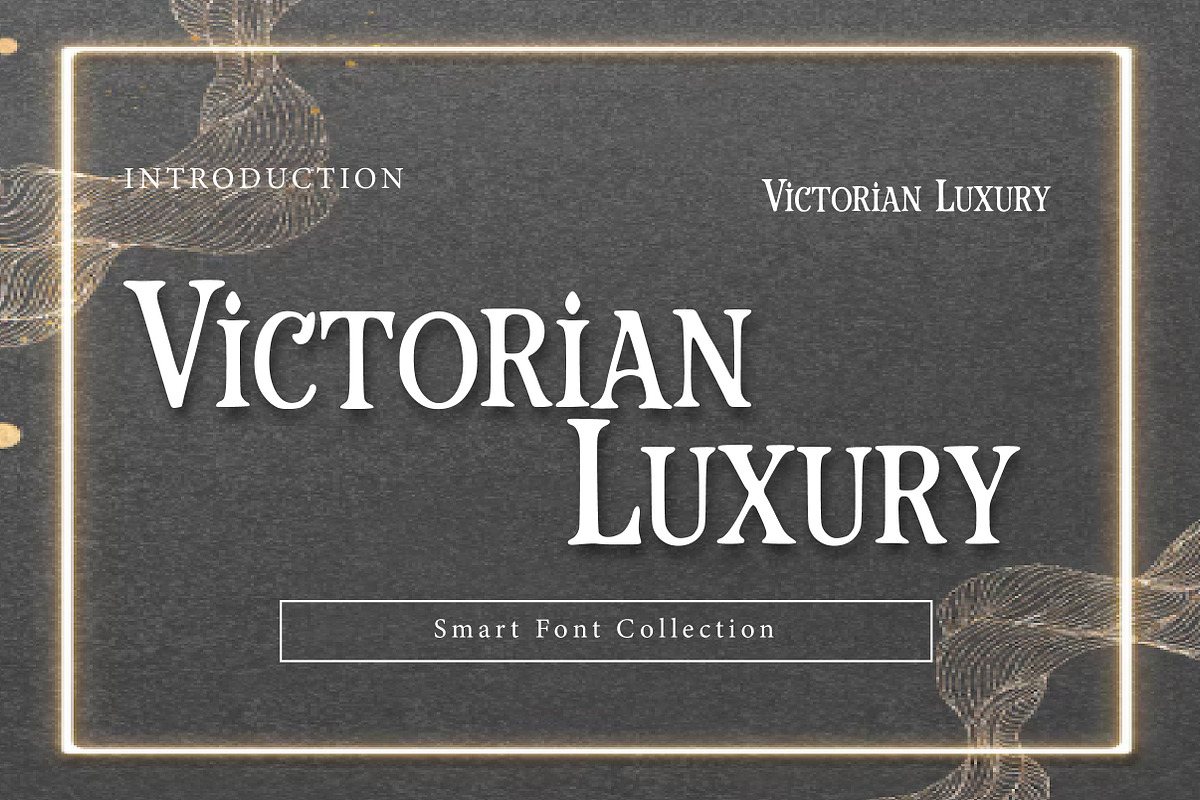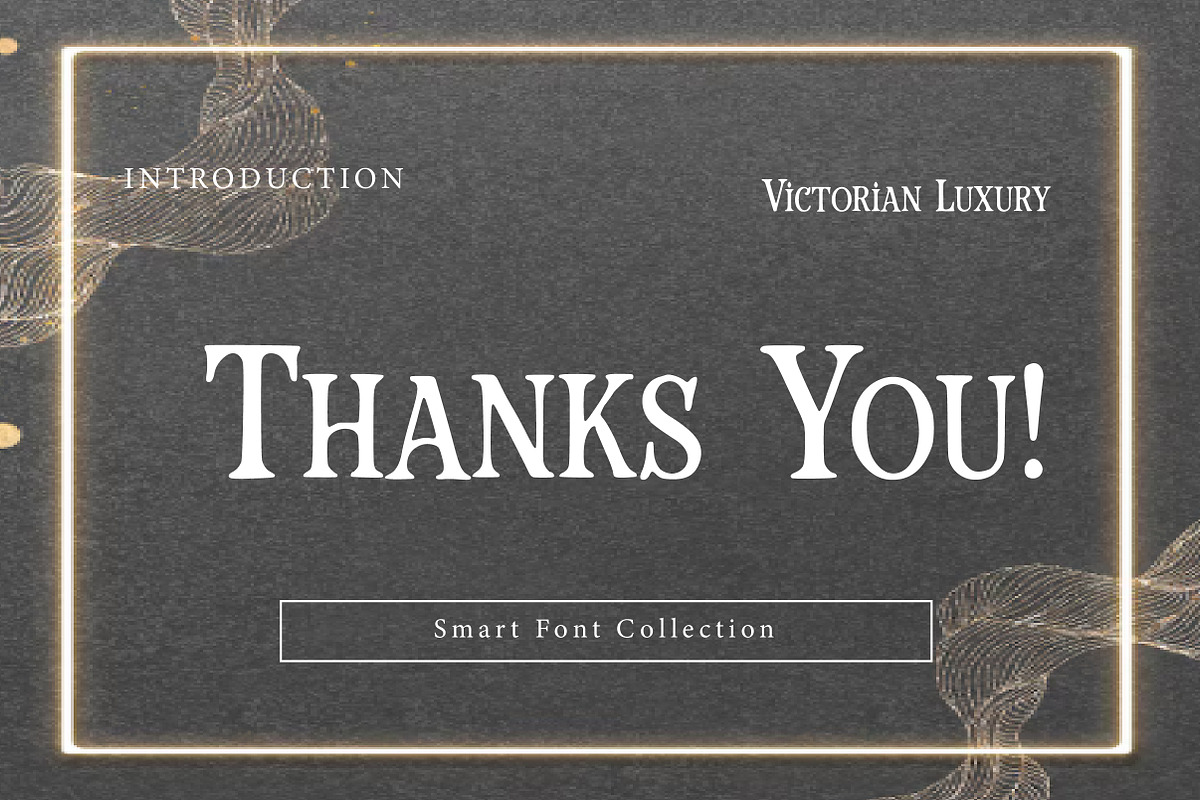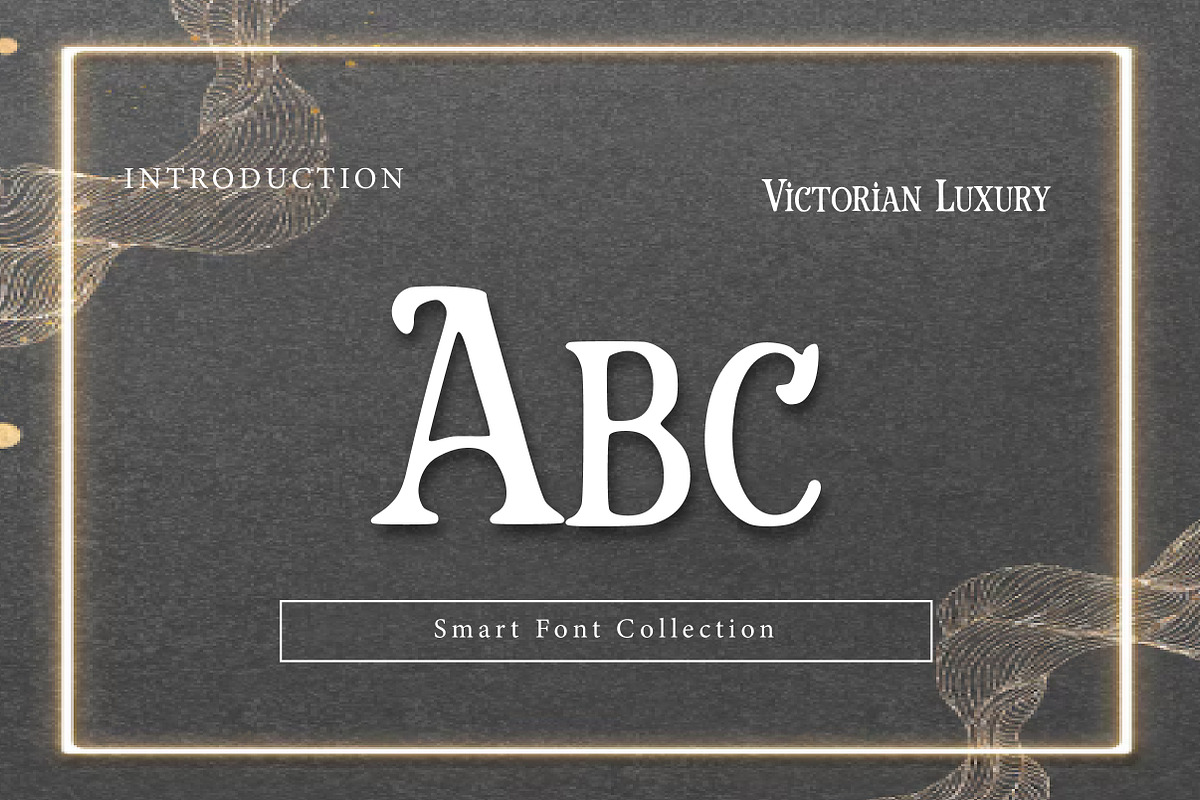
Victorian Luxury
Victorian Luxury is an elegant vintage display serif inspired by classic Victorian-era typography. With tall proportions, sharp refined serifs, and a timeless premium feel, it’s perfect for luxury branding, editorial headlines, wedding designs, perfume and cosmetics packaging, boutique logos, invitations, certificates, and high-end product labels. Use Victorian Luxury when you want a sophisticated, royal, old-world look that still feels clean and modern.